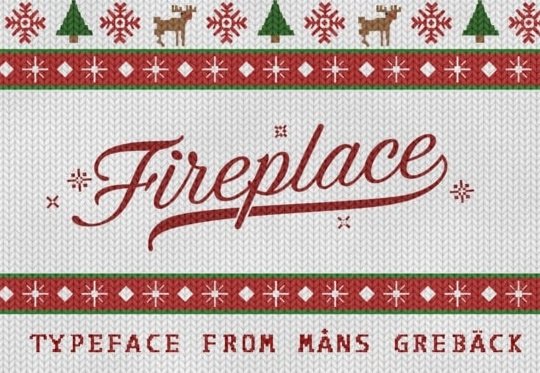
Fireplace Calligraphy Font
Fireplace Calligraphy Font has a very unique style with an alternate that so many say you have many choices for your project. This typeface is a decorative logotype font. Drawn and created by Mans Greback in 2020, this script typeface has a cozy and warm holiday vibe, bringing the thoughts to a Christmas Eve and winter season. It is a vintage sport lettering that has velocity, style and class.
The font has extensive lingual support, covering all European Latin scripts. It contains all characters you’ll ever need, including all punctuation and numbers.